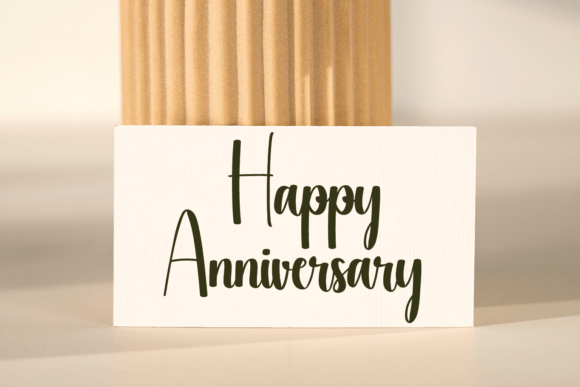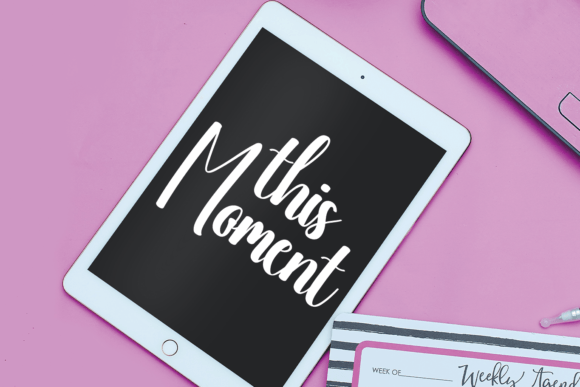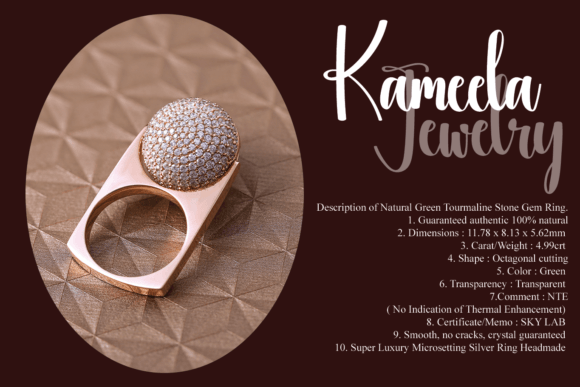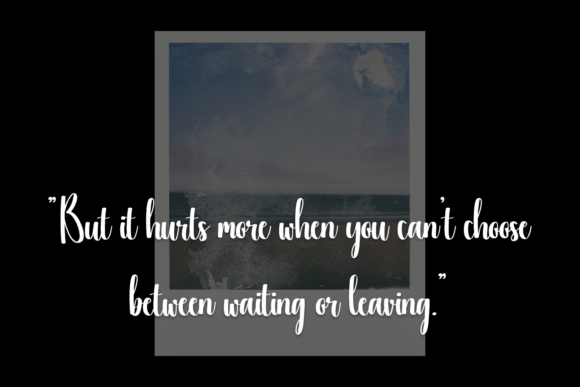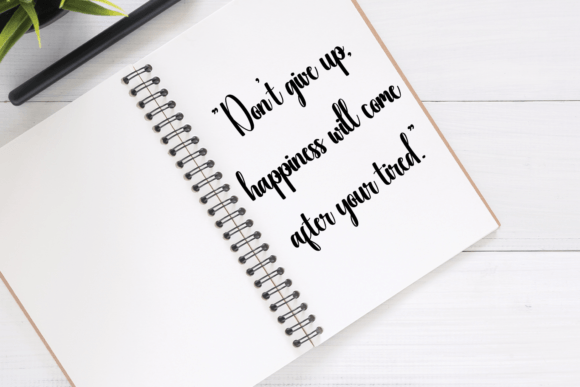
Introduction to Morning Story Font
Morning Story is a chic and refined script font that emanates sophistication and elegance.
Its stylish alternates and ligatures make this font the perfect match for any creative project you wish to create Add it to your designs, and notice how it makes them come alive.
Key Features of Morning Story Font